Choosing the right font is not just a matter of aesthetics when it comes to design. It is a crucial element that can significantly impact the overall effectiveness of your design.
Fonts play an important role in descripting your design's mood, style, and message, making it essential to select the perfect font that aligns with your vision and resonates with your target audience.
Fonts can inspire feelings, express professionalism, or inject a little humor into your design. They can improve readability, highlight important details, and create a unified visual identity.
With so many font choices available, knowing the various font kinds and their traits will help you make wise choices and take your design to new heights.
Understanding the Different Font Styles
Serif Fonts: Serif fonts are characterized by small lines, known as serifs, at the ends of the strokes. These fonts are often seen as classic and elegant. Examples of serif fonts include Times New Roman, Garamond, and Baskerville.
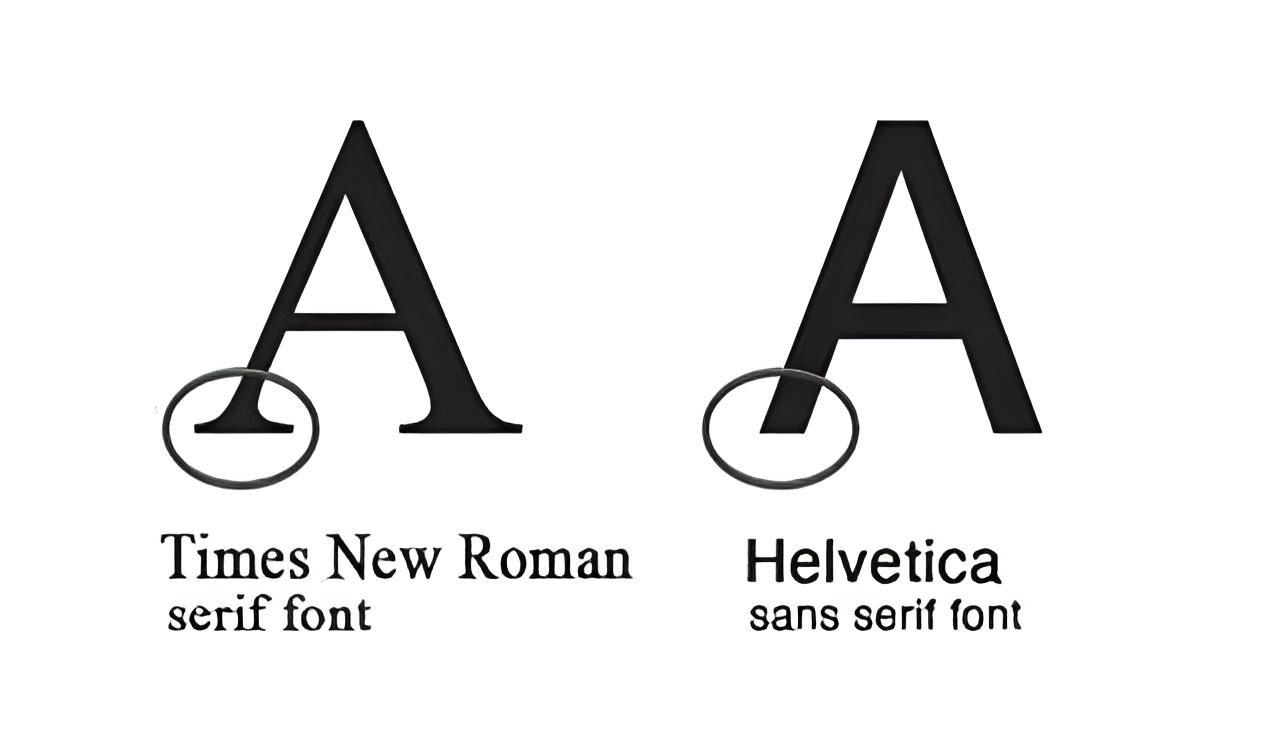
Sans Serif Fonts: Sans serif fonts, on the other hand, do not have serifs. They are considered more modern and cleaner. Popular sans serif fonts include Arial, Helvetica, and Trebuchet MS.
Display Fonts: Display fonts are larger and more decorative than serif or sans serif fonts. They are commonly used for headlines or titles to grab attention. Impact, Comic Sans, and Curlz MT are some examples of display fonts.
Script Fonts: Script fonts are based on handwriting and can be formal or informal, depending on the style. Zapfino, Brush Script, and Copperplate Gothic are a few examples of script fonts.
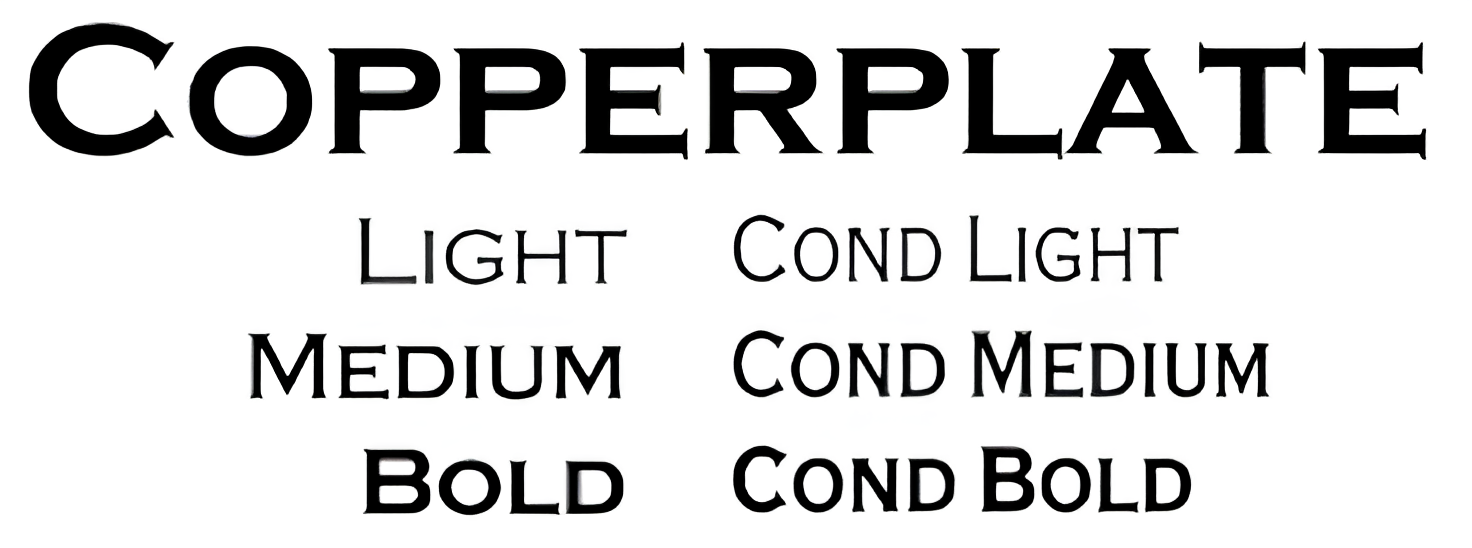
Handwriting Fonts: Handwriting fonts are designed to mimic actual handwriting. They are versatile and can be used for personal notes, invitations, and more. Anna, Lucida Handwriting, and KG Handwriting are popular handwriting fonts.
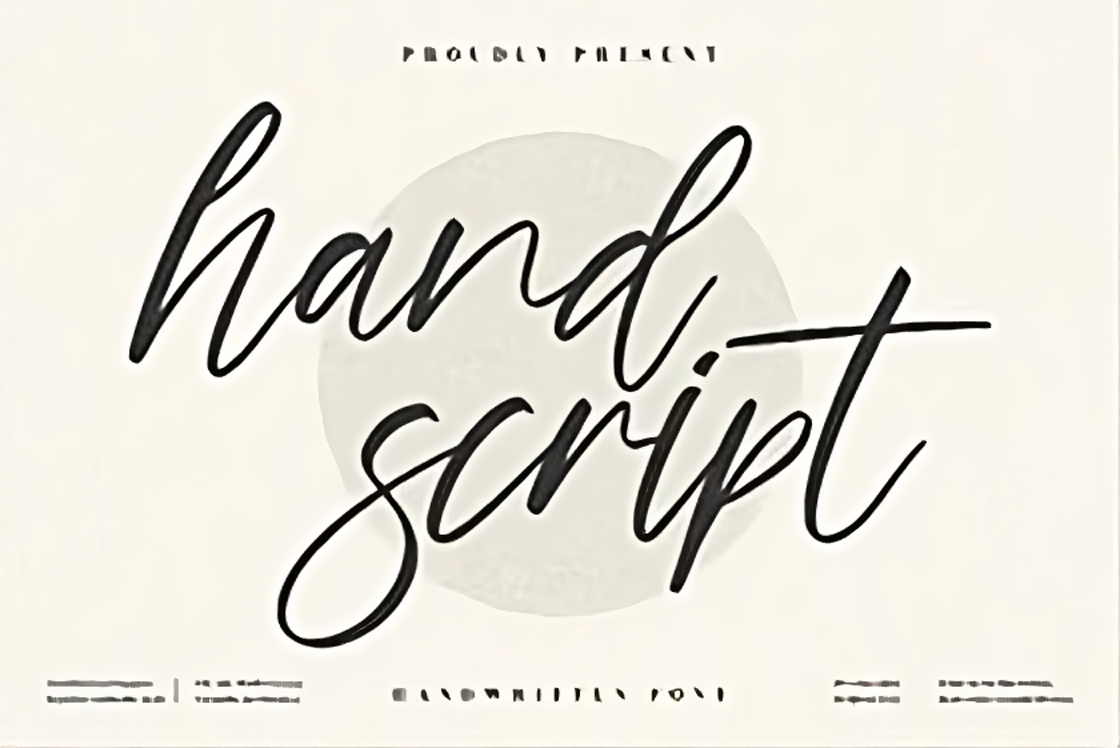
Some Additional Tips for Choosing Fonts
Choosing the right fonts for your designs is crucial in creating visually appealing and effective content. Here are some additional tips to help you make the best font choices:
- Consider the overall style of your design: Fonts play a significant role in setting the mood and tone of your design. Think about the emotions or feelings you want to evoke. For example, if you're designing a formal invitation, a classic serif font might be more suitable. In contrast, a playful sans-serif font could work well for a children's book cover.
- Think about the purpose of your design: Fonts can communicate different messages and serve various purposes. Determine whether you aim to convey information, sell a product, or create visually captivating artwork. The font you choose should align with the intended purpose and enhance the overall message.
- Consider your target audience: Understanding your audience is essential in selecting the right fonts. Consider their preferences, age group, and cultural background. Fonts that resonate with your audience will help create a stronger connection and improve readability.
- Experiment with different fonts: Be bold and explore various font options. Test different combinations to find the perfect match for your design. You can pair a bold headline font with a more subtle body font to create contrast and hierarchy.
Examples of Fonts Used by Big Companies
Google: Roboto font
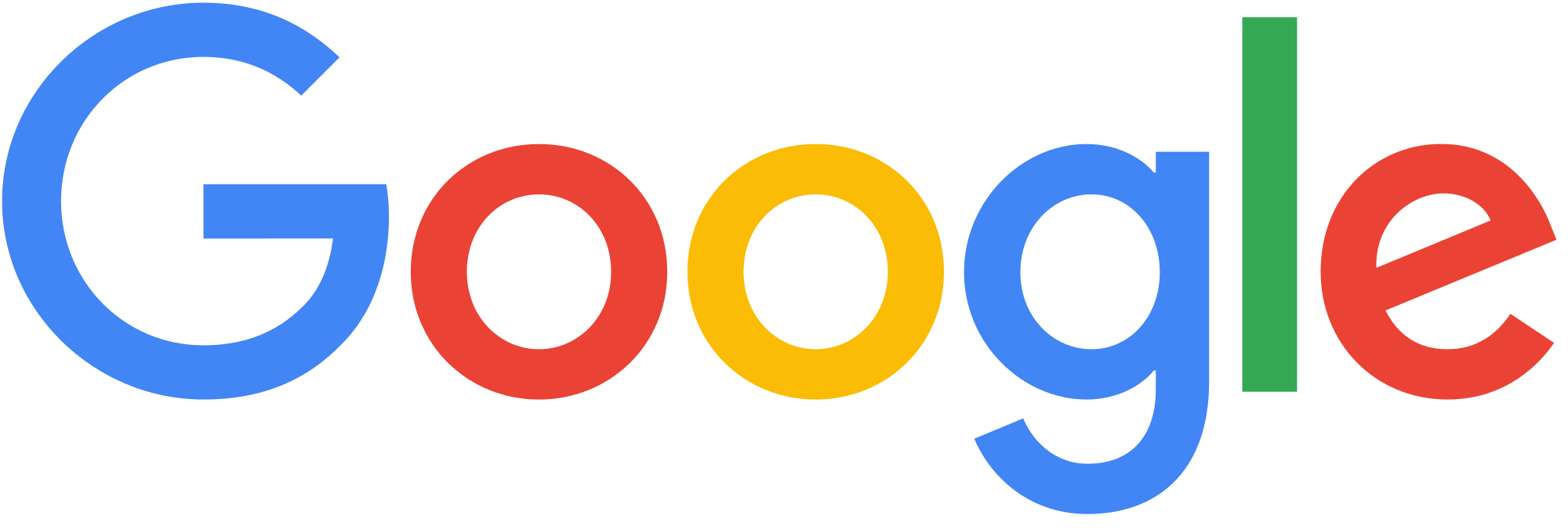
Apple: San Francisco font
Microsoft: Segoe UI font
Nike: Futura font
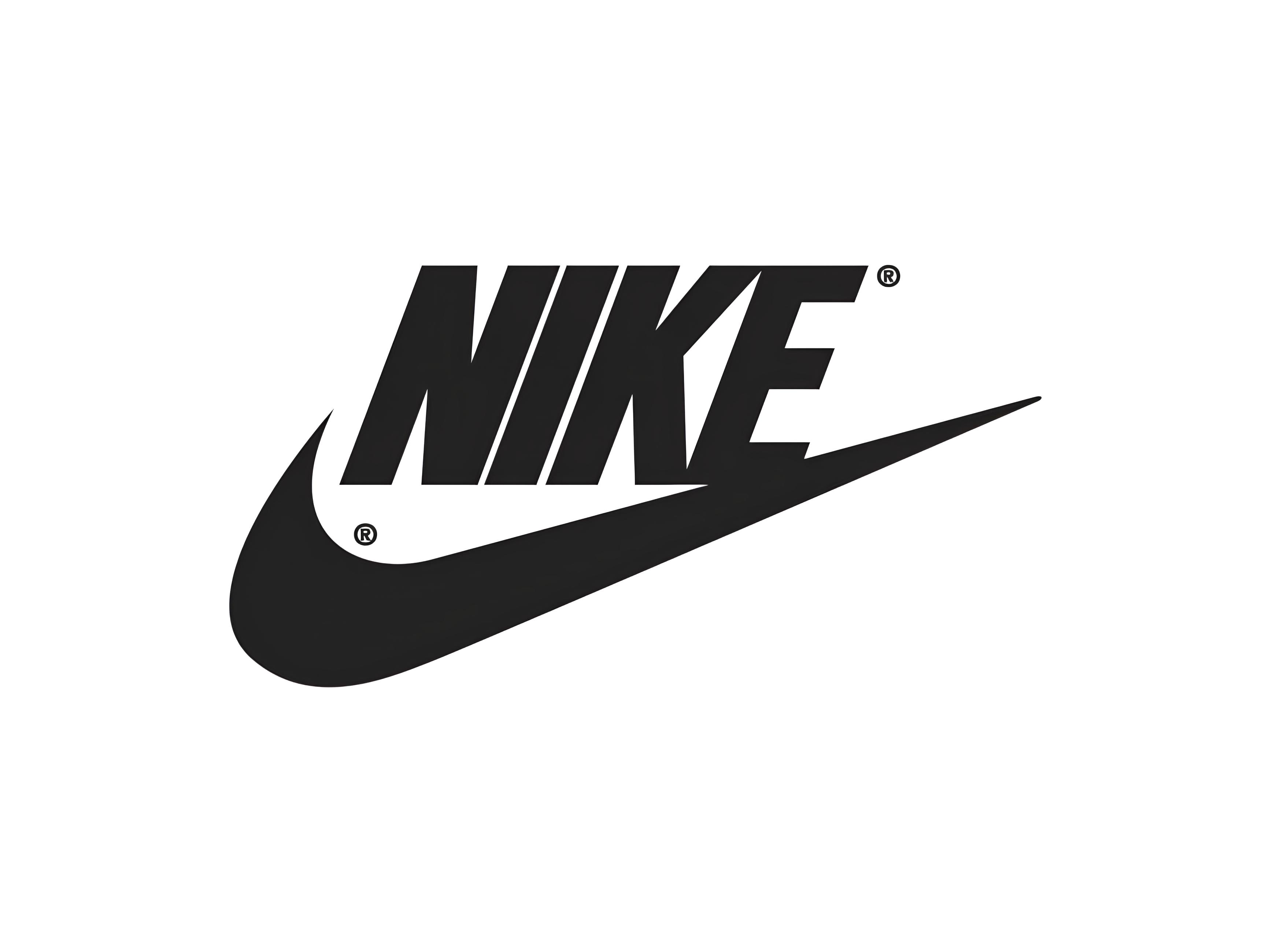
Coca-Cola: Spencerian Script font
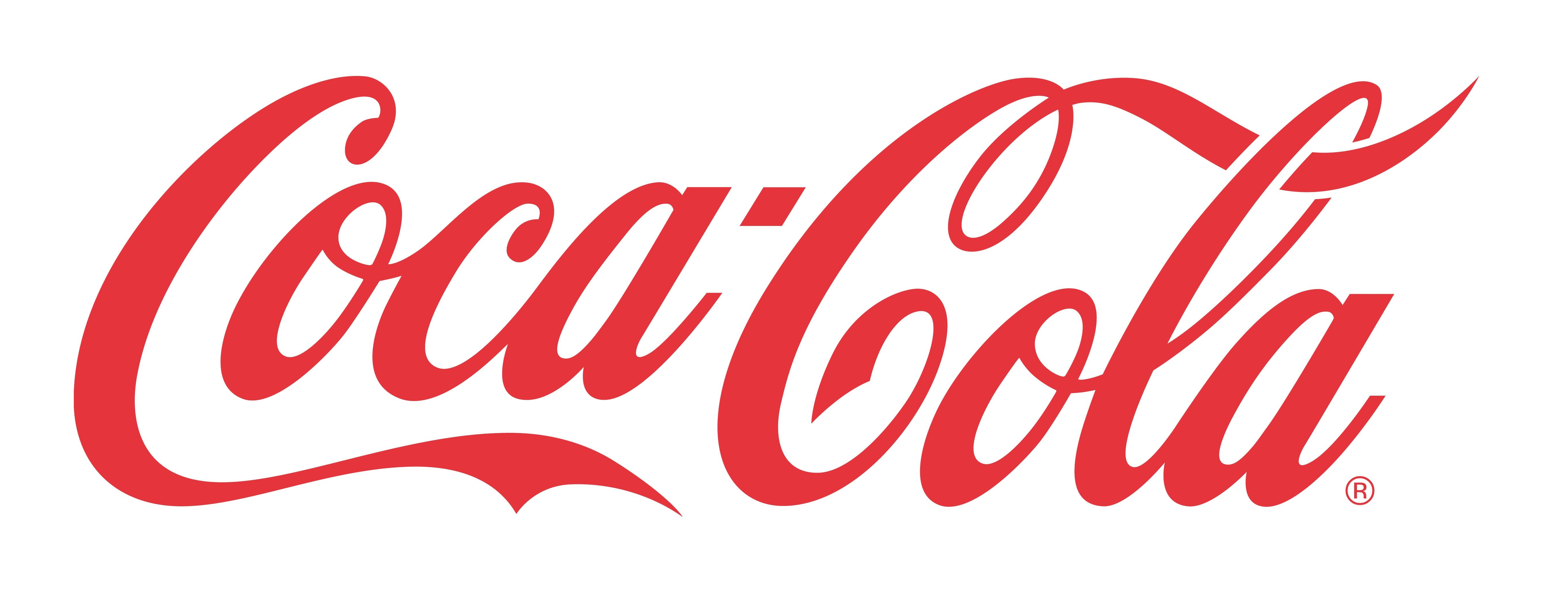
Why is choosing the right font important in design?
Choosing the right font is essential in design because fonts convey the mood, style, and message of your design. They can influence readability, aesthetics, and the overall impact of your content.
How can I choose the right font for my design's mood and purpose?
Consider the overall style and mood you want to create with your design. Think about the purpose of your design (informational, promotional, artistic) and your target audience. Experiment with fonts that align with these factors.